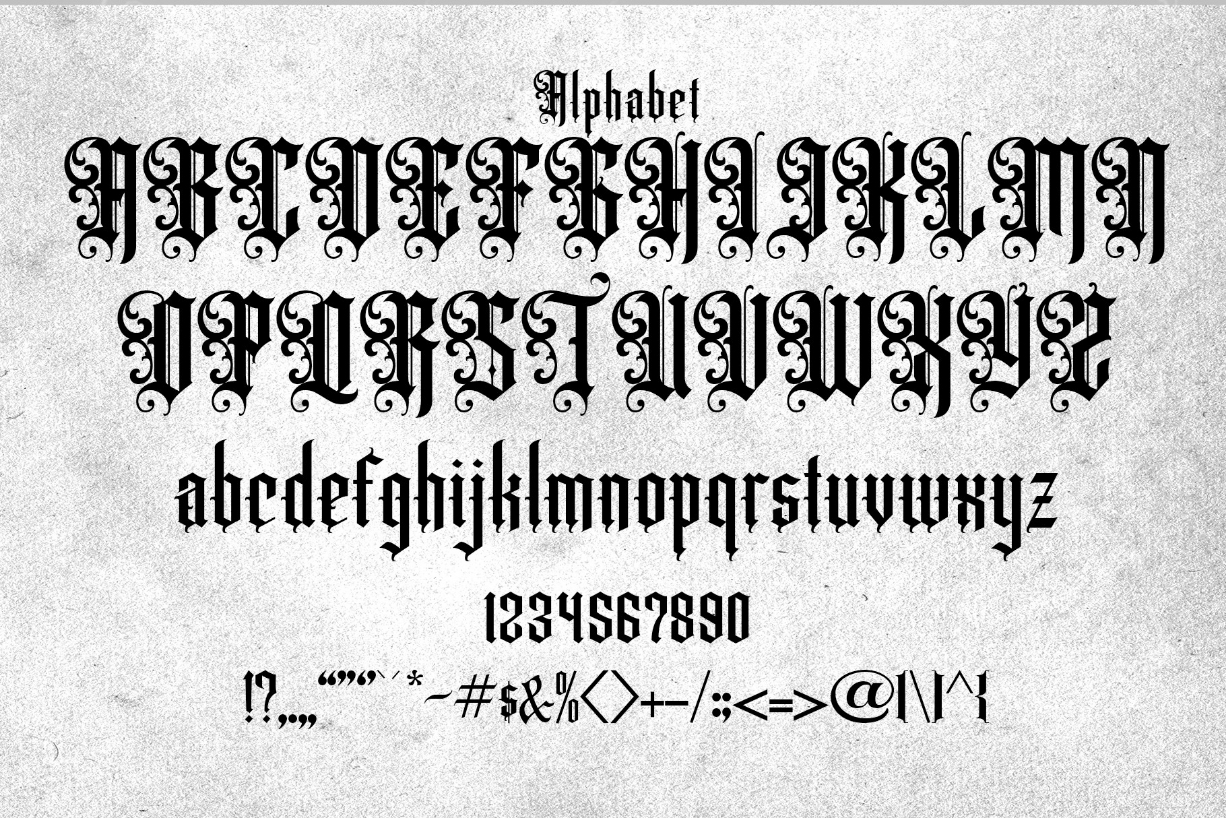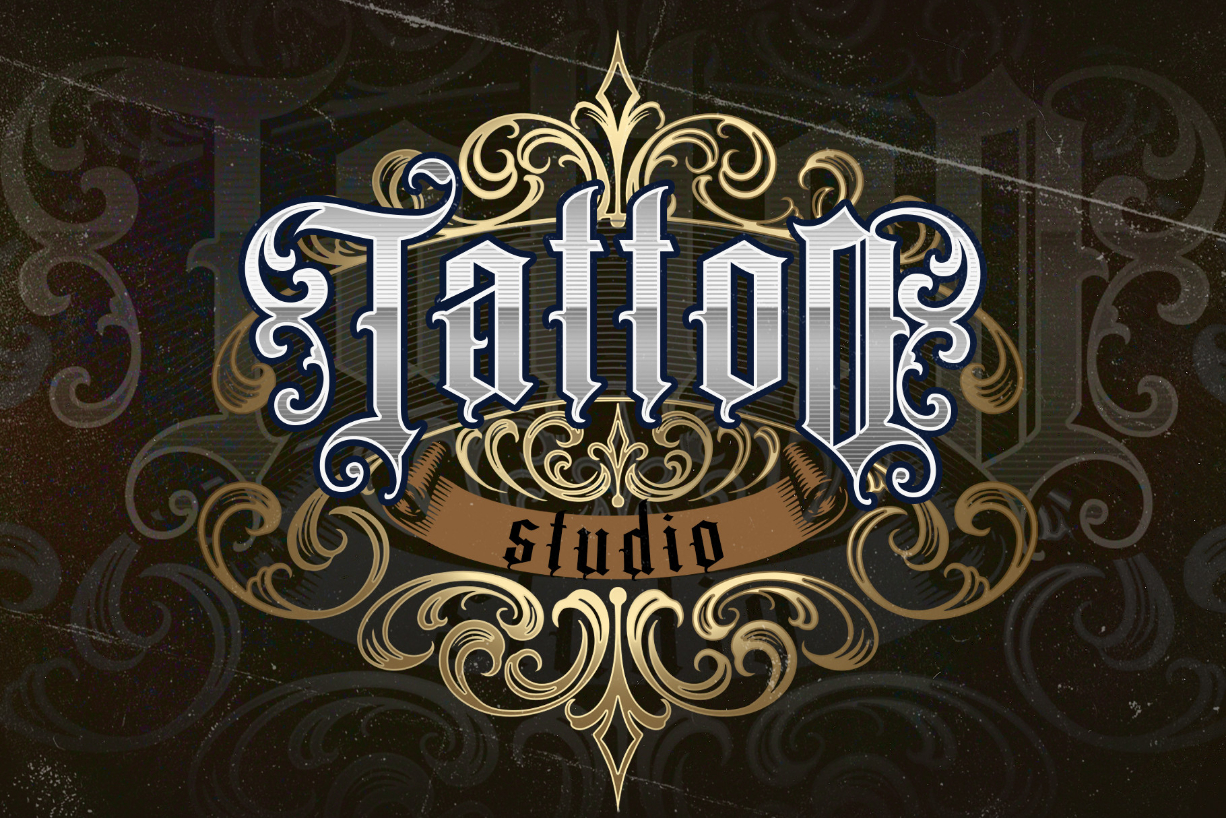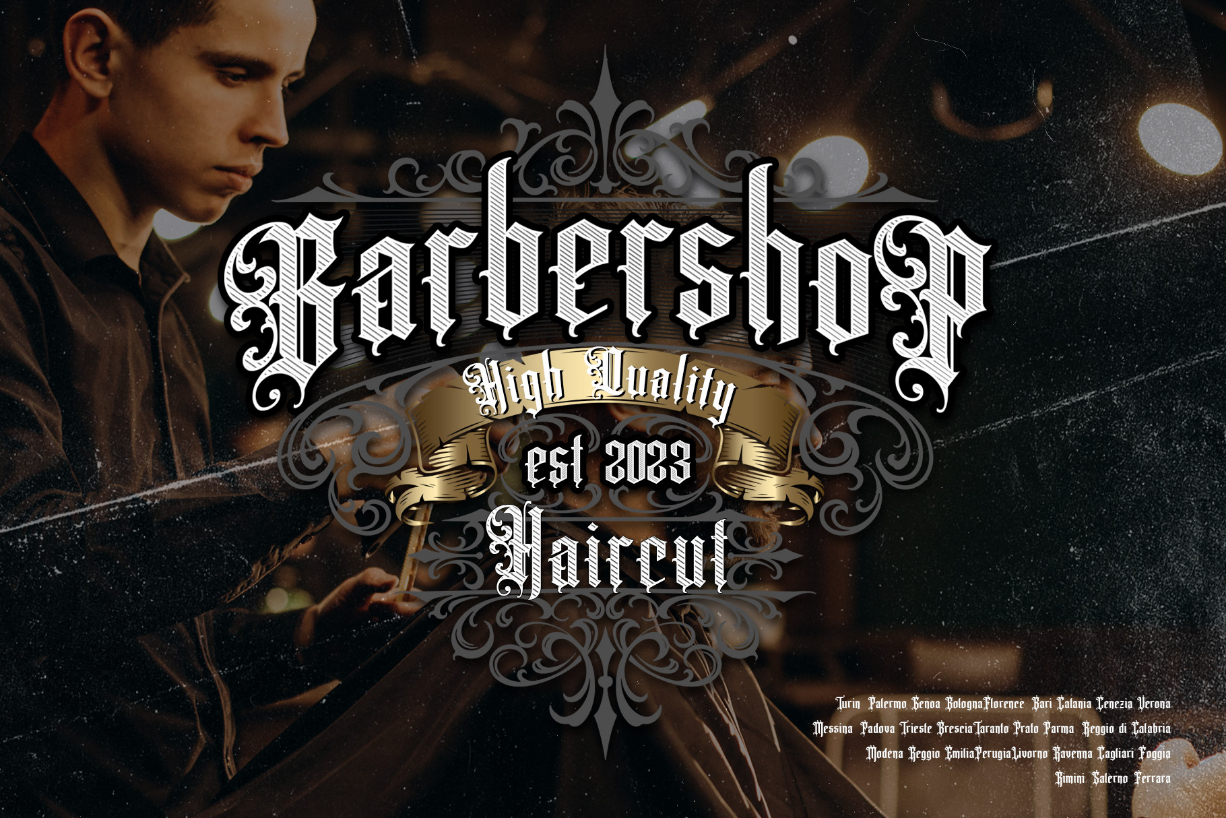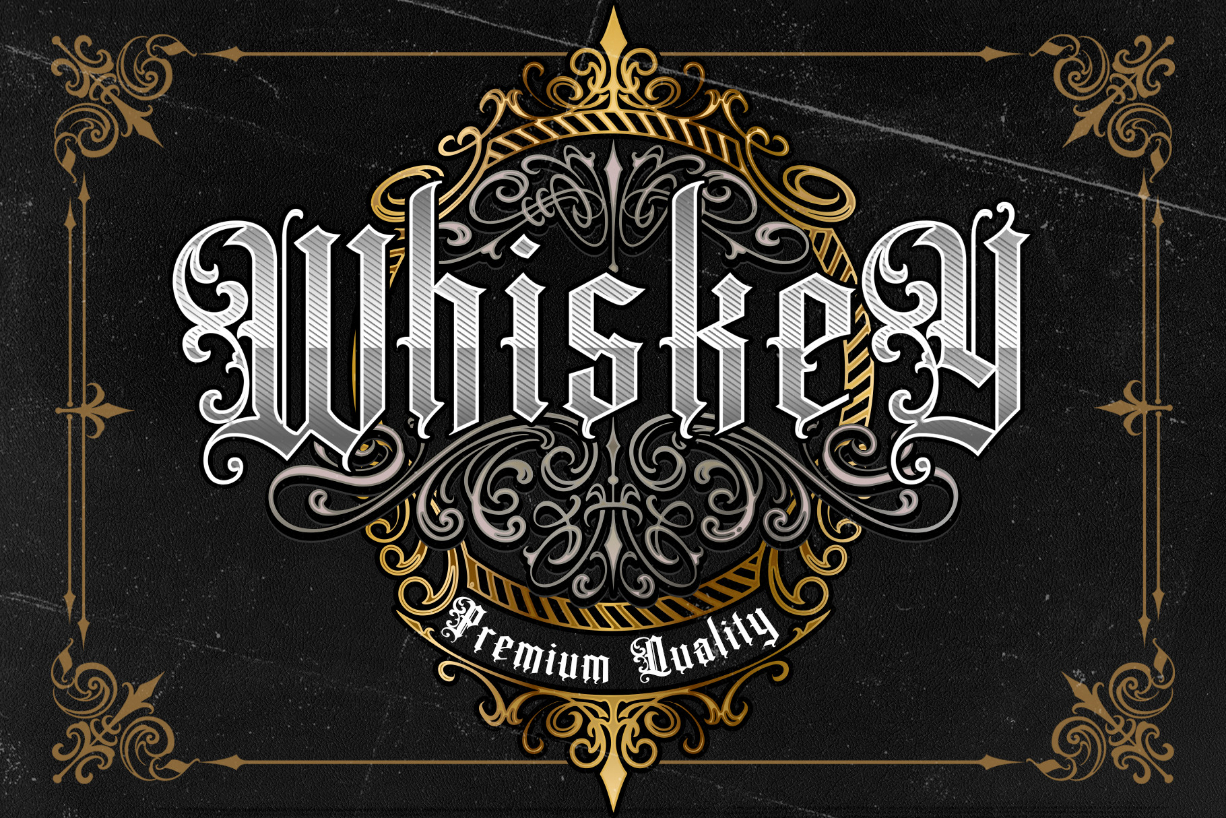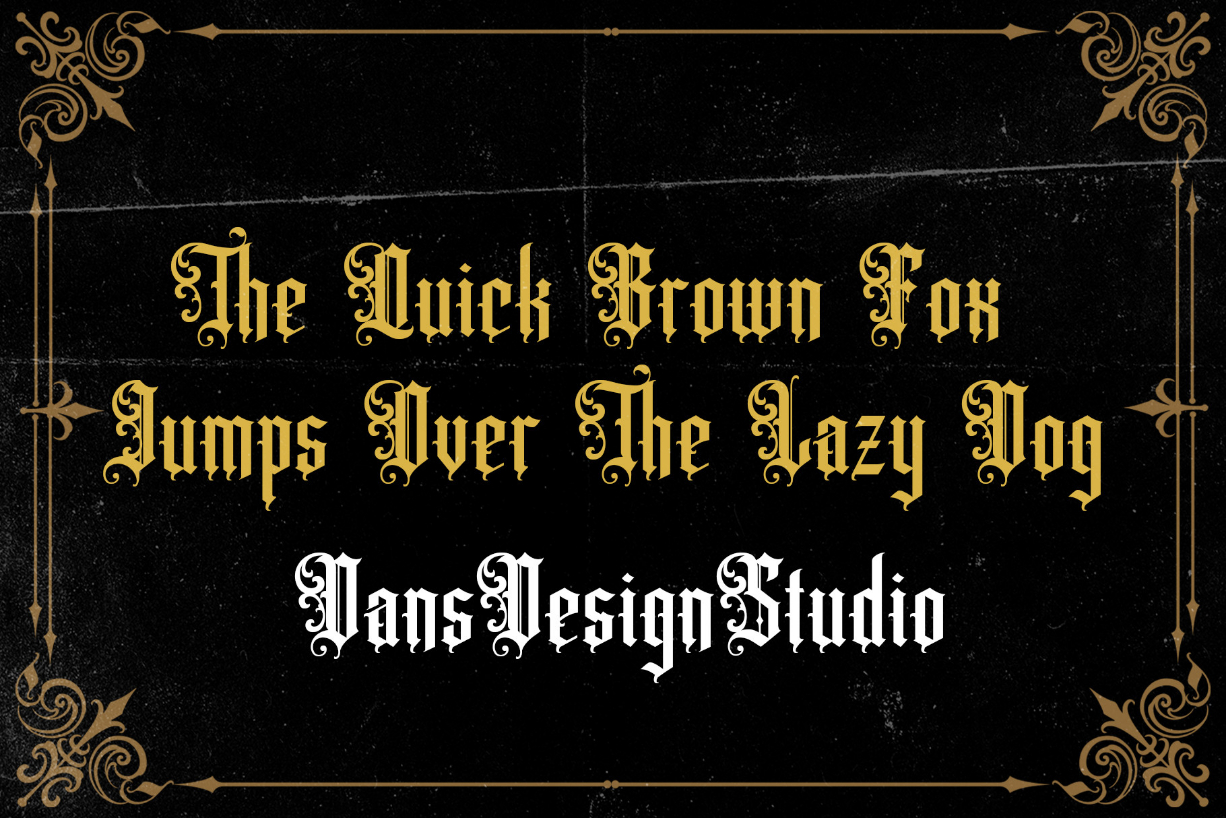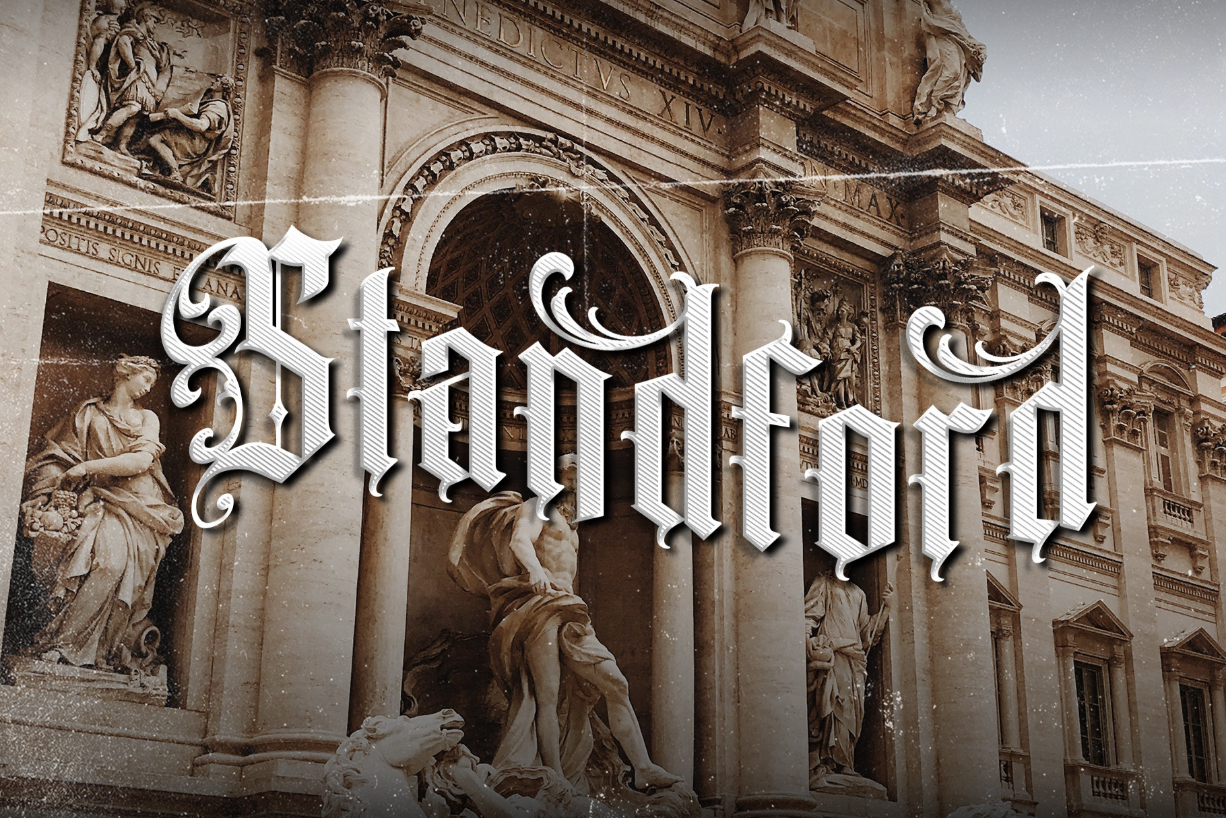
Artgravis Font
About Artgravis Font
Artgravis Modern Blackletter
Artgravis a distinct, highly detailed, Blackletter Font. It would make a great choice for exquisite retro-urban designs, tattoo business branding, logos, vintage designs, and more.